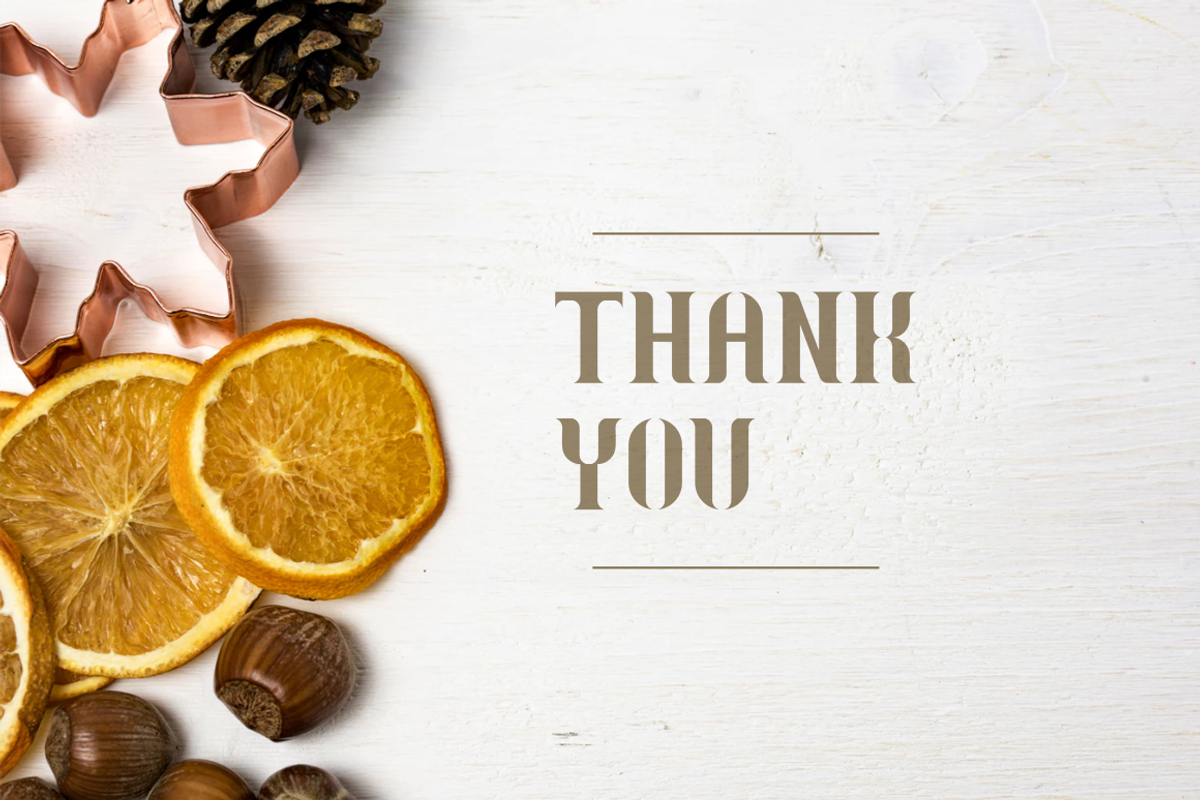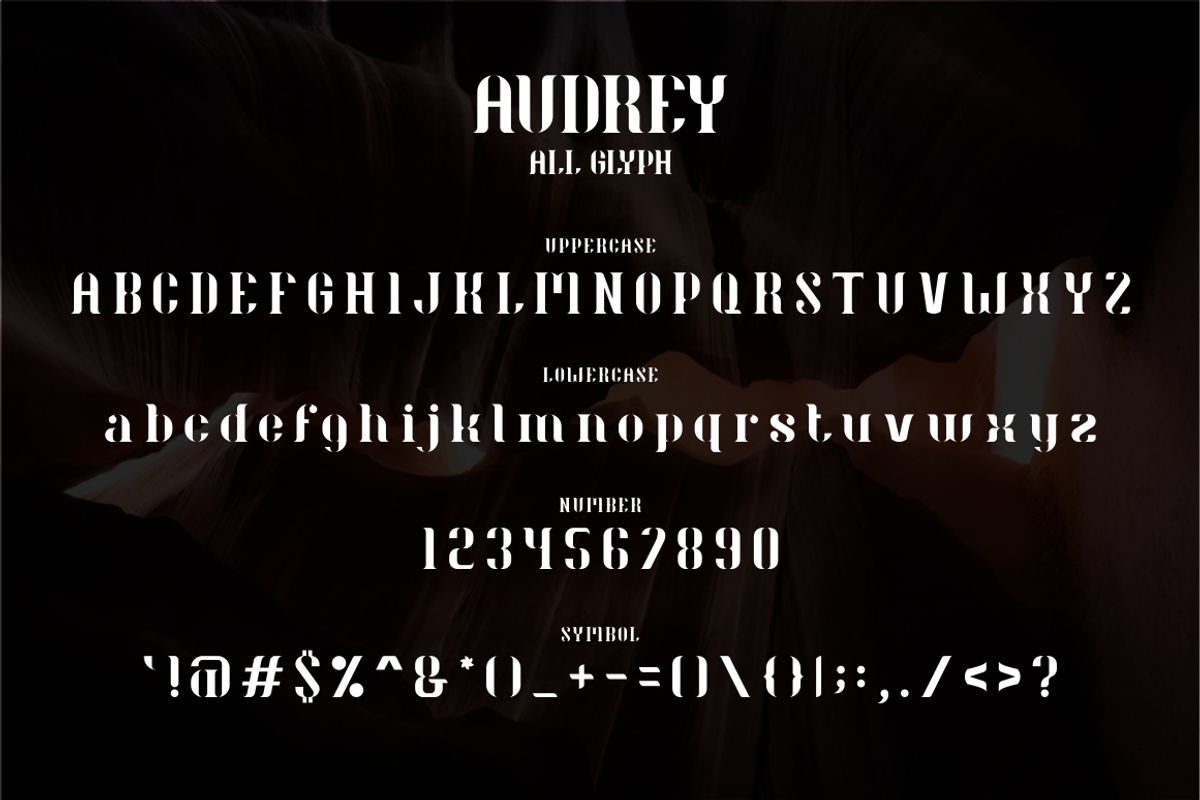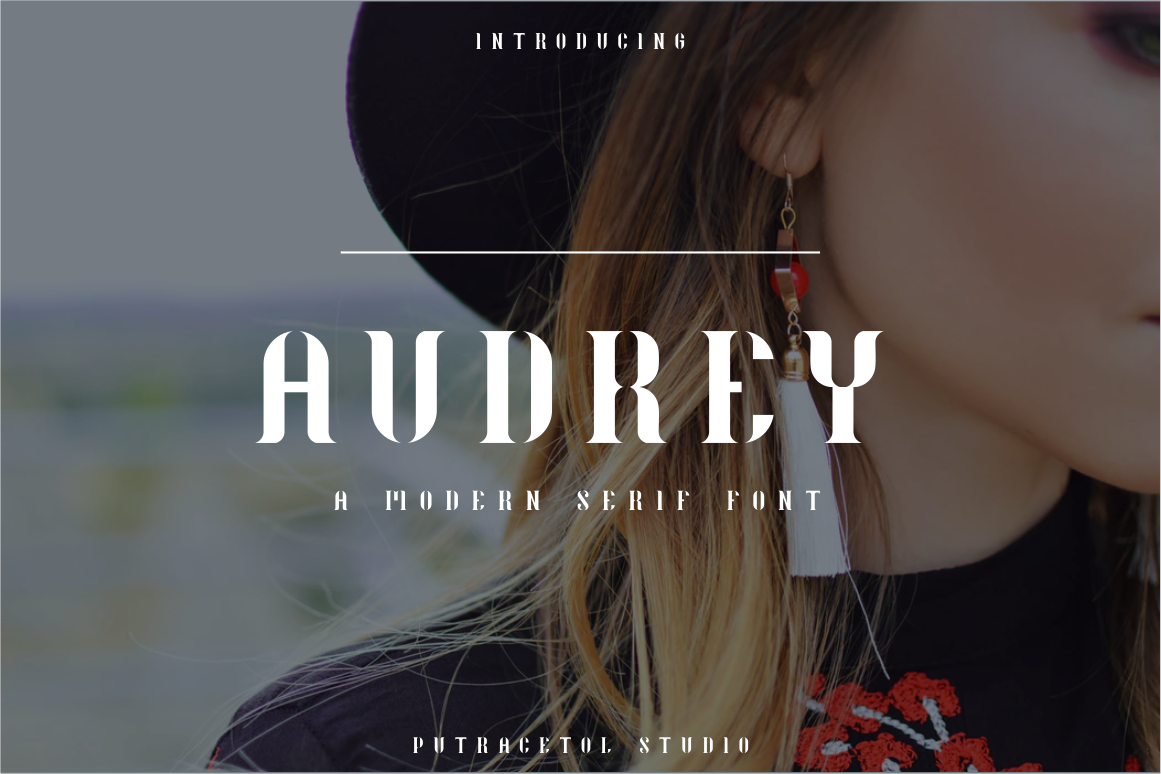
Audrey Font
AUDREY
Audrey is is a modern serif font typeface. This font will pair beautifully with the script, signature or handwriting style. This font was inspired by old style classic typefaces, but in a modern feel. Audrey is perfect for headlines, titles, heading, logos, posters, invitation,book, brainding, booklet, flyer and any creative design. This font contains all uppercase english alphabet, numbers and basic punctuation.